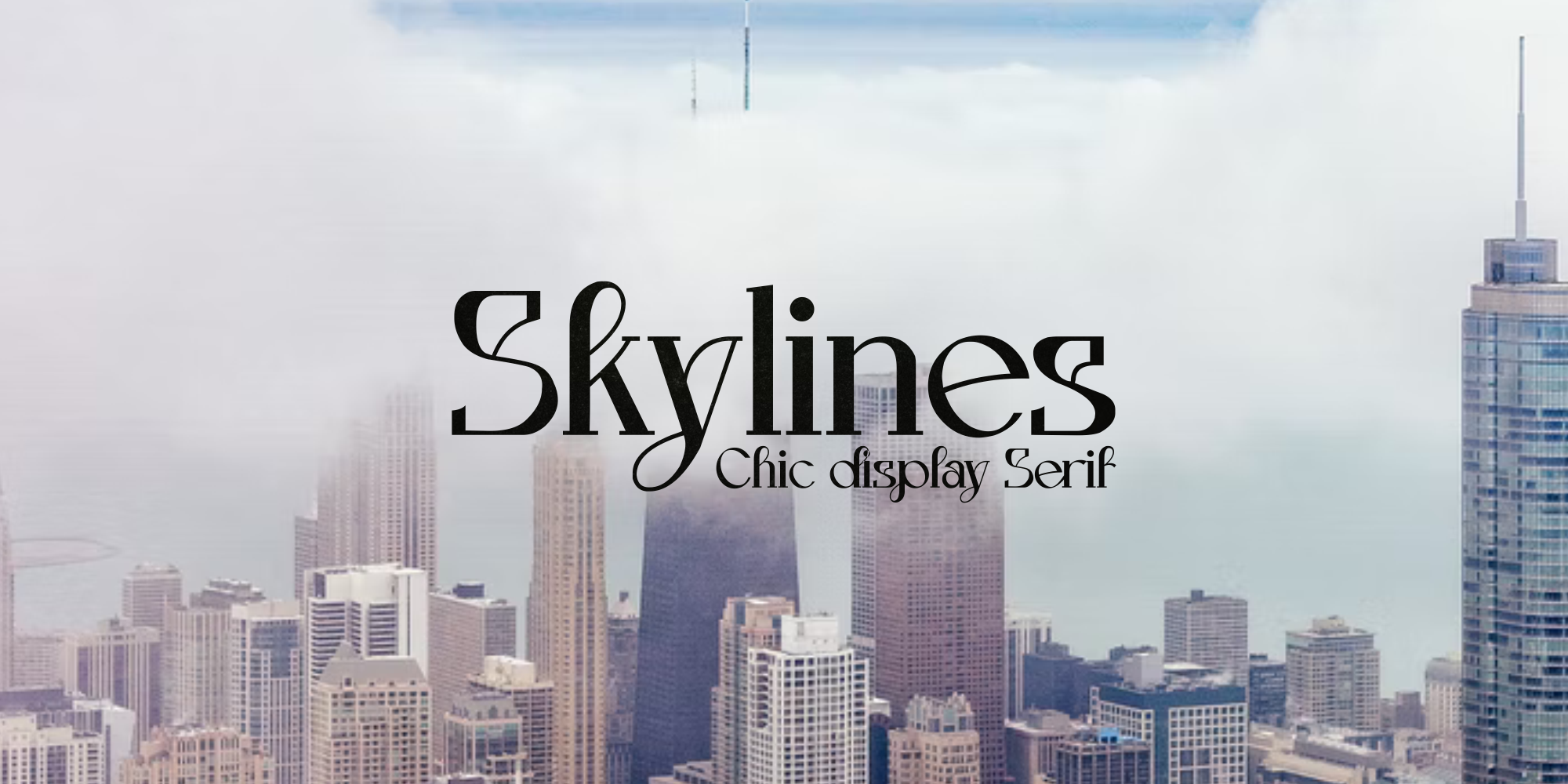
Skylines Font excels in urban architecture branding, modern city planning presentations, contemporary real estate marketing, metropolitan business identities, sleek corporate communications, urban lifestyle magazines, modern transportation design, city skyline tourism campaigns, architectural firm branding, and cutting-edge municipal projects.
Skylines Font is exciting because it captures the magnificent essence of modern cityscapes through its towering letterforms that rise like architectural marvels, embodying the ambition and sophistication of urban environments while maintaining clean readability and professional appeal. This remarkable typeface represents the perfect fusion of metropolitan energy and structural precision, making it an essential tool for designers seeking to create communications that reflect the dynamic spirit of modern city life and architectural innovation.
The Skylines Font family includes comprehensive variations such as Regular, Bold, Light, ExtraBold, Medium, Condensed, Extended, Thin, Black weight, Italic styles, and specialized architectural elements, providing complete design flexibility for any urban-inspired creative project.
Skylines Font represents a breakthrough in urban typography, delivering exceptional visual impact for projects that celebrate metropolitan sophistication and architectural excellence. Its distinctive structural character makes it particularly effective for brands seeking to establish a strong presence in competitive urban markets and construction industries.
The metropolitan appeal of Skylines Font makes it ideal for architectural firms, urban development companies, modern real estate agencies, city planning departments, construction corporations, and contemporary design studios requiring sophisticated urban communication. Its structured letterforms ensure memorable brand recognition among professional and urban-conscious audiences.
Creative professionals recognize how Skylines Font Free Download provides instant access to premium urban typography that transforms ordinary designs into extraordinary expressions of metropolitan elegance and architectural sophistication. The font's extensive character set supports diverse city-focused applications while maintaining its distinctive skyline appeal.
Skylines Font's advanced features include contextual alternates, structural ligatures, and geometric styling options that enhance the font's urban character. These architectural elements enable designers to create compelling layouts that resonate with city-dwelling audiences and construction professionals.
The adaptability of Skylines Font extends seamlessly across digital and print platforms, proving equally effective for urban planning websites, architectural mobile apps, city guide publications, metropolitan social media campaigns, and municipal presentations. Its scalable design maintains crisp structural definition at any size.
For design professionals working in urban environments, Skylines Font delivers the perfect combination of metropolitan sophistication and professional functionality. Its architectural appeal combined with technical excellence makes it an indispensable resource for creating memorable visual communications that capture the towering ambition and structural beauty of modern skylines in today's rapidly urbanizing world.